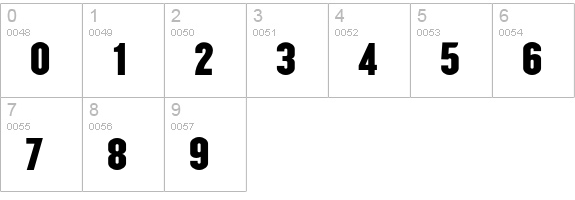
Champion-HTF-Welterweight font is a versatile and modern typeface that exudes strength and confidence. Its sleek and bold design makes it perfect for headlines, titles, and branding projects. The font's clean lines and sharp edges give it a professional and polished look that is sure to make a statement. What sets Champion-HTF-Welterweight font apart is not just its striking appearance, but also the fact that it is available for free download at FontsMarket.com. This means that you can easily access and use this impressive font in your design projects without any hassle or cost. Whether you're working on a website, a poster, a logo, or any other creative endeavor, Champion-HTF-Welterweight font is a fantastic choice that will help elevate your work to the next level. Download it today and unleash the power of this exceptional typeface!